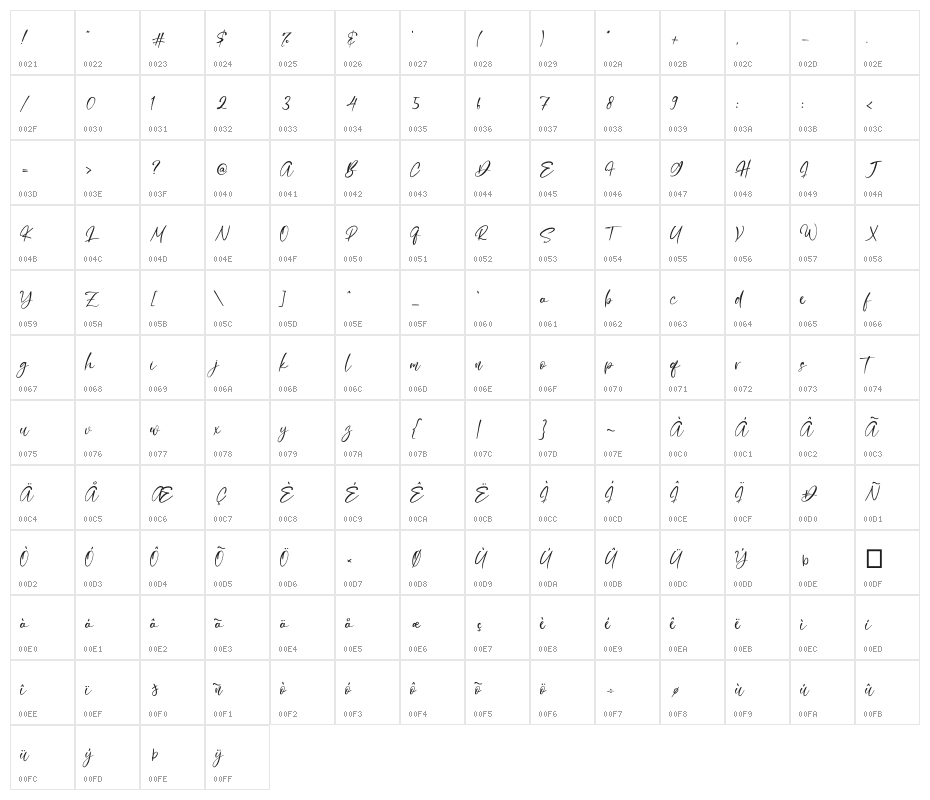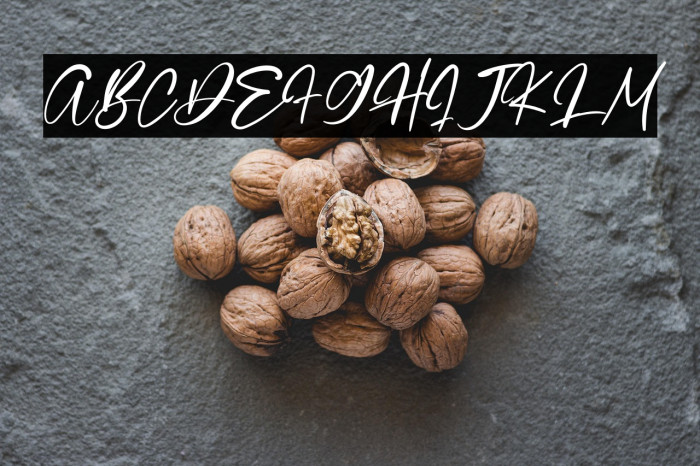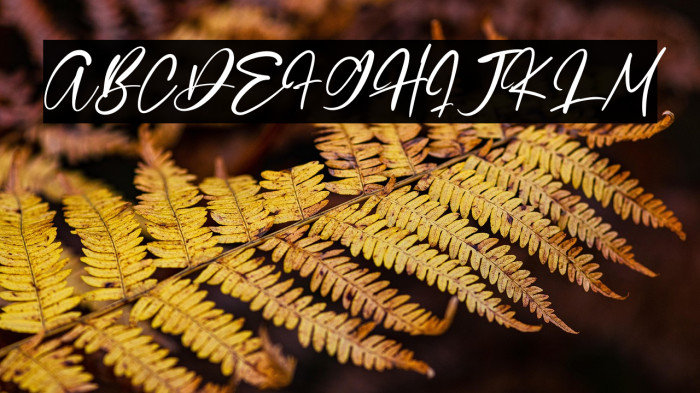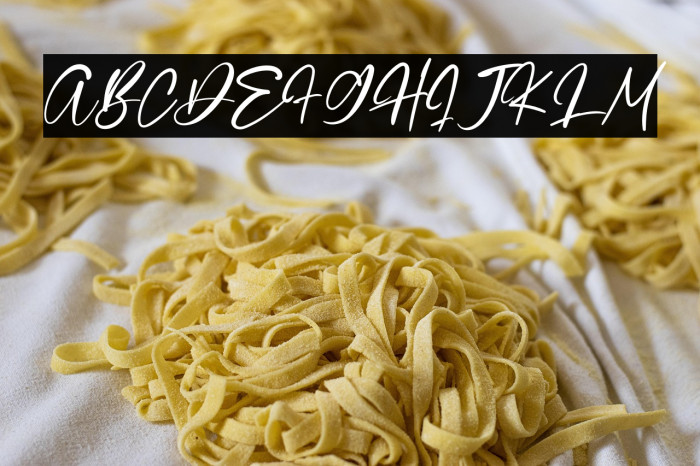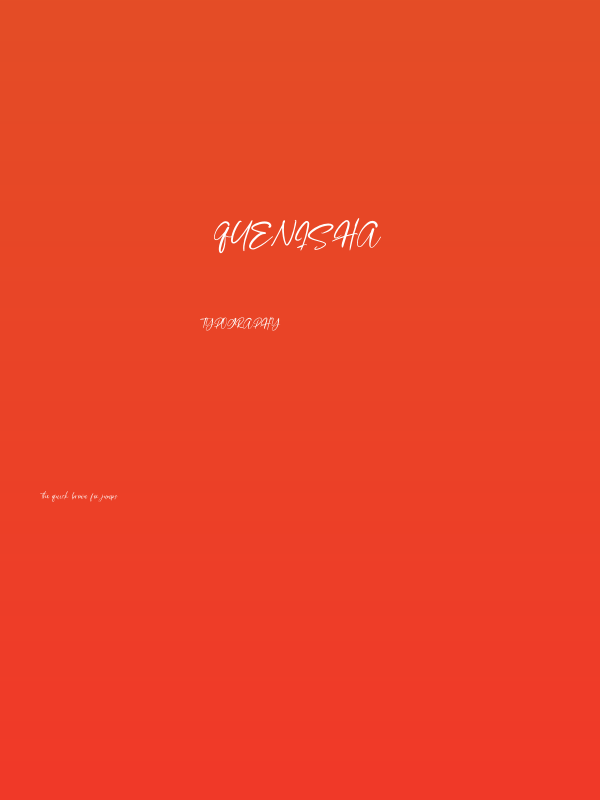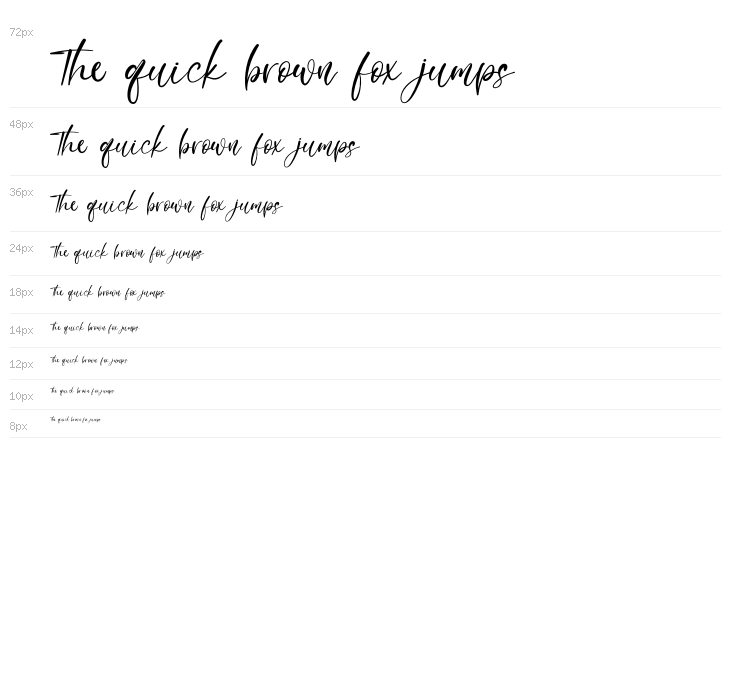
Quenisha Font
Quenisha Description
This font exudes a modern, handwritten style with a touch of elegance and flair. The characters are fluid and connected, giving a sense of motion and grace. The uppercase letters are tall and slightly slanted, while the lowercase letters maintain a consistent flow with subtle loops and curves. The numbers and special characters follow the same stylistic approach, ensuring a cohesive look throughout. The overall appearance is both stylish and approachable, making it suitable for a variety of creative projects.
| Use Case | Logos, Invitations, Social Media |
| Proposed Projects | Ideal for wedding invitations, greeting cards, branding, and social media graphics. |